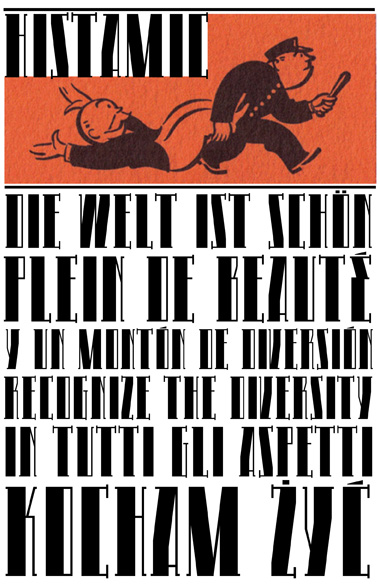
• Hey Ladies! I started this in march this year. I was just stoked about some work of thalamic (i don`t know which font it was, tho), so i began fontstructing this about half the height, i think. While doing that i stumbled upon old stuff like posters from the early 30ies. Somehow all this mixed up in my mind, just to explain why it`s called histamic. Apparently in progress, like always! Come on, it`s free :)
Simply, clean, usable and very effective.It also gives the appearance of being slightly hand-drawn. Excellent work.
Really beautiful font!!! It doesn't look handwritten to me though.
Not handwritten, hand-drawn as in painted by hand or something :) And that picture's from the game Monopoly, I believe.
@Umbreon: It doesn't look hand drawn either
I like this thin design. 10/10 and a favorite.
Even though this is constructed entirely from straight – and mostly from perpendicular – lines, the serifs (or beaks, rather) that pop above the cap height and dip below the baseline bless adjacent horizontals with just the right touch of optical bend to keep the flow of things interesting. Z and S are great examples of how these small details bring an organic quality to the whole affair.
Histamic transcends a purely rational and boxy look. It riffs on deco themes that, while geometric, never abolish flair in the name of outright minimalism. Gotta save space that top hat monocle! Chrome sparkle and sequins for all!
Yet for all the high- and low-waisted glyphs and extreme contrast, the overall look remains reserved and dignified.
Classy yet casual. These kind of letters might be scrawled on a binder with a thick marker, or be big glyphs rendered on a painted sign with a flat, wide brush. Buried somewhere in this fontstruction’s lineage are even a few strands of Pixação dna.
Slightly hand-drawn: DJ Nippa’s right on.
i wish i could bend my words in english like you do, to explain what i had in mind :)
I especially appreciate you feeling that twist in e.g. "S" in your first part of your comment.
Thanks also for realizing, this all could be done with a fat marker, cause thats what i love doing :P
Historic!
Excellent work and fascinating how your use of straight lines gives this font a handmade impression.
This is so full of character. A real delight and a future classic. 10/10++++++++
it's a master piece
Of course I love it. Not much to say after Will's review cuz he be speaking hecka gooder than me.
@kix: Lowercase pleeeeeease.
To be honest i exprienced the lower case, but the only alternatives, who didn`t follow me in my dreams are NOT in it :) They all sucked! You are a brother in mind, you know about the "possibilities", so i thought you´d have a better belief in my choices _) Juat because upper and lower case are not really similar
Feels like bring back to 40's era ^^